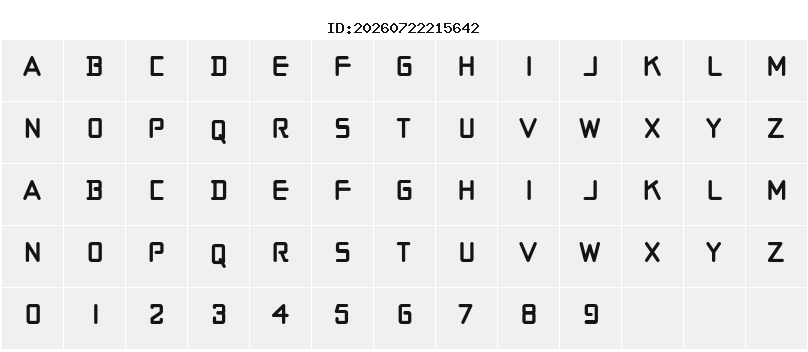
• Font Name: Moto
• Full Font Name: Moto
About Moto.ttf
Moto.ttf is a modern, elegant sans-serif font designed for ultimate readability and visual harmony. Perfect for branding, headlines, web design, and print materials.